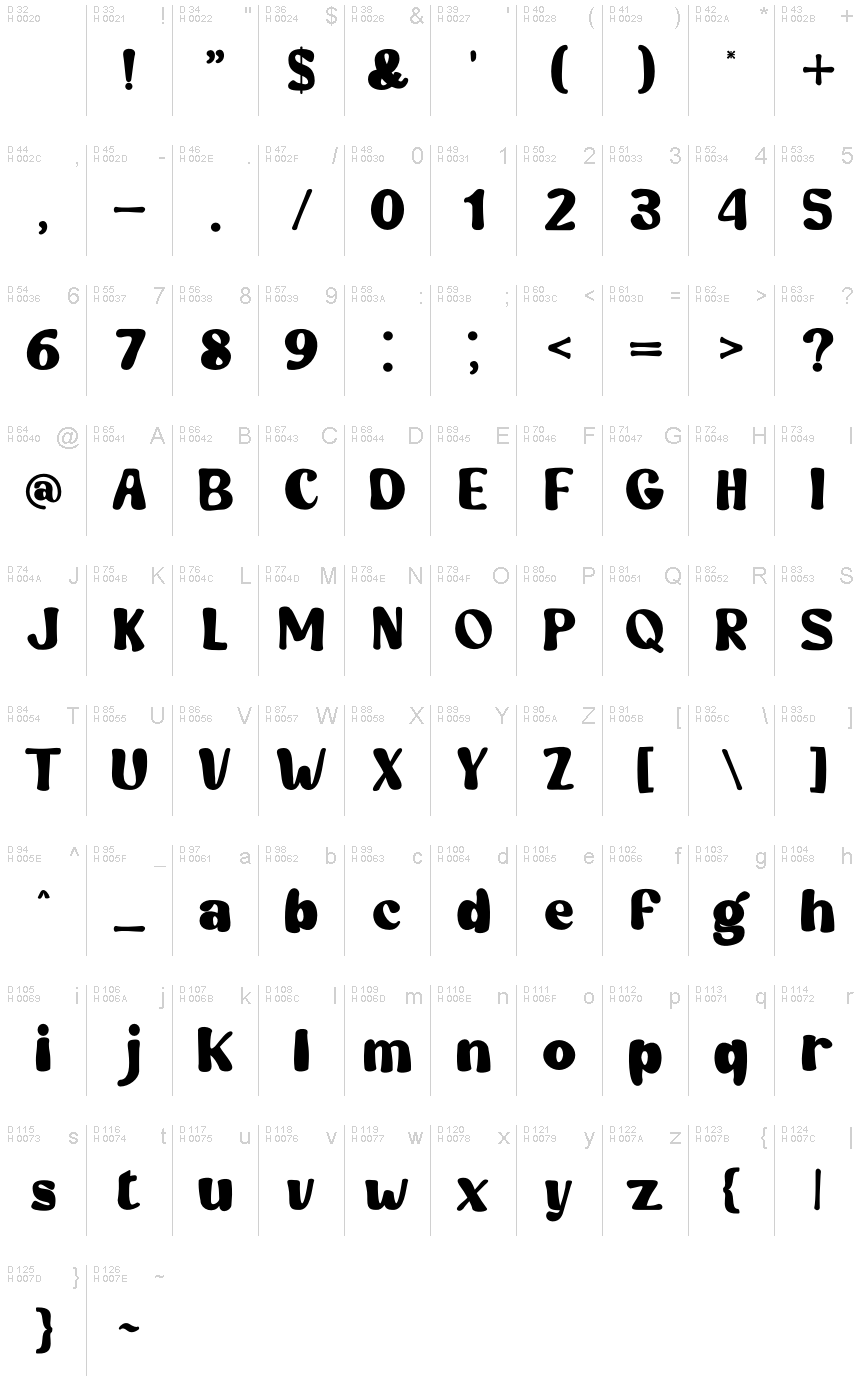
Retro Side
Retro Side, a bold and groovy display font crafted by Rvandtype, exudes a captivating retro-inspired aesthetic. With its striking letterforms and dynamic curves, this font radiates a sense of nostalgia and a touch of retro flair. The bold weight and distinct character shapes contribute to its eye-catching presence, making it an impactful choice for various design projects.
Retro Side's versatility shines through its adaptability to diverse design contexts. Its bold and attention-grabbing nature lends itself well to headlines, logos, and branding materials, where it can command attention and create a lasting impression. Additionally, the font's retro-inspired charm makes it an excellent selection for vintage-themed layouts, editorial spreads, and poster designs, where it can help evoke a sense of timeless style and evoke a playful, groovy atmosphere.